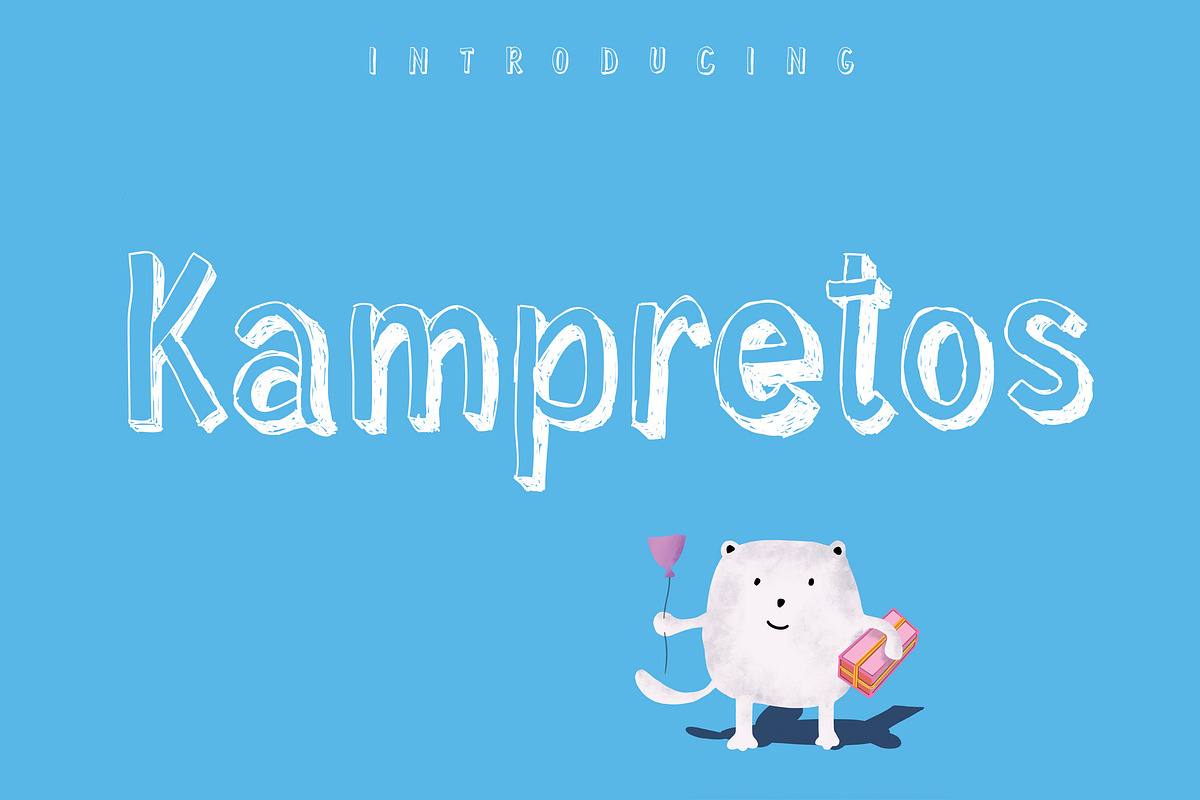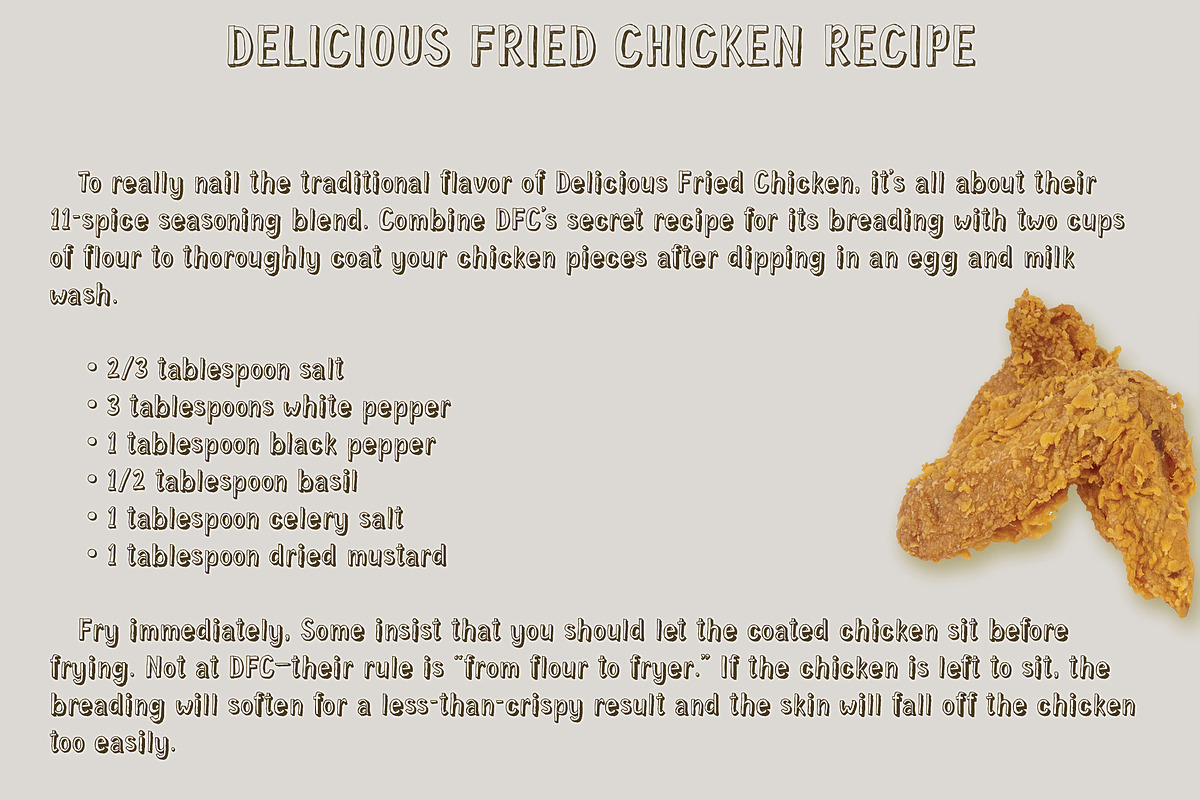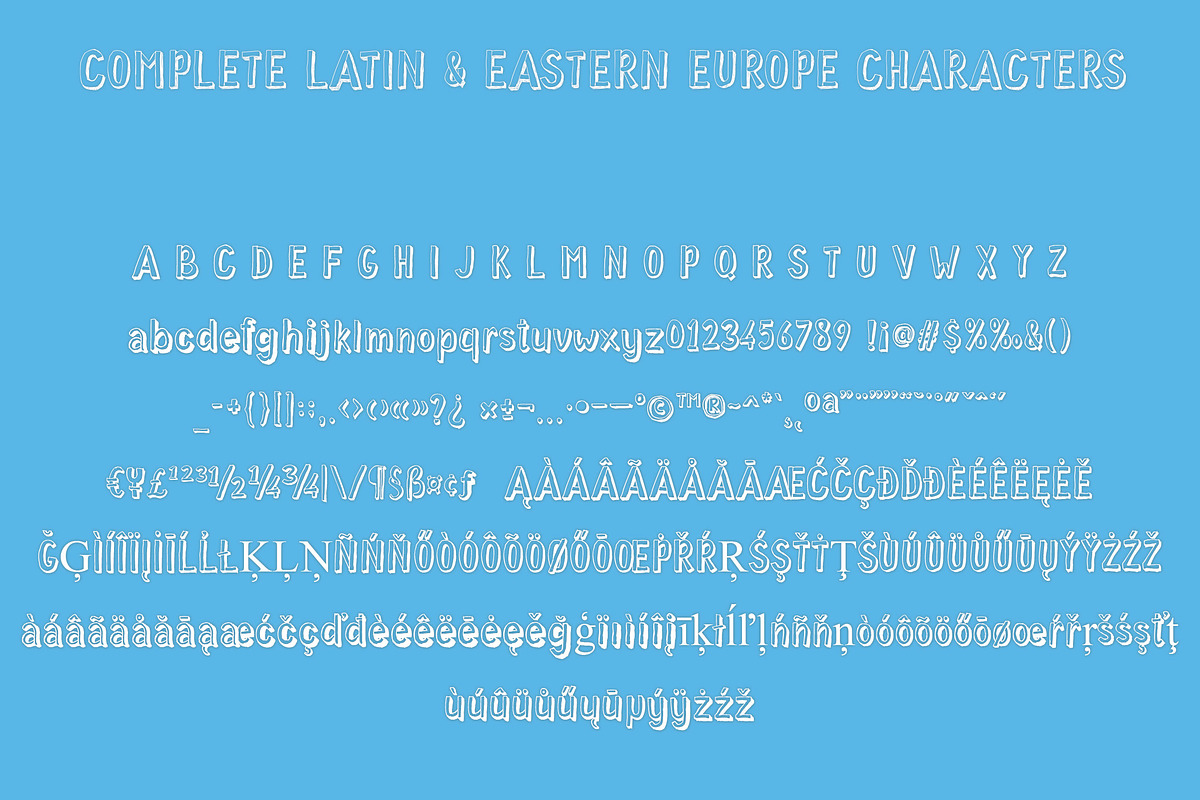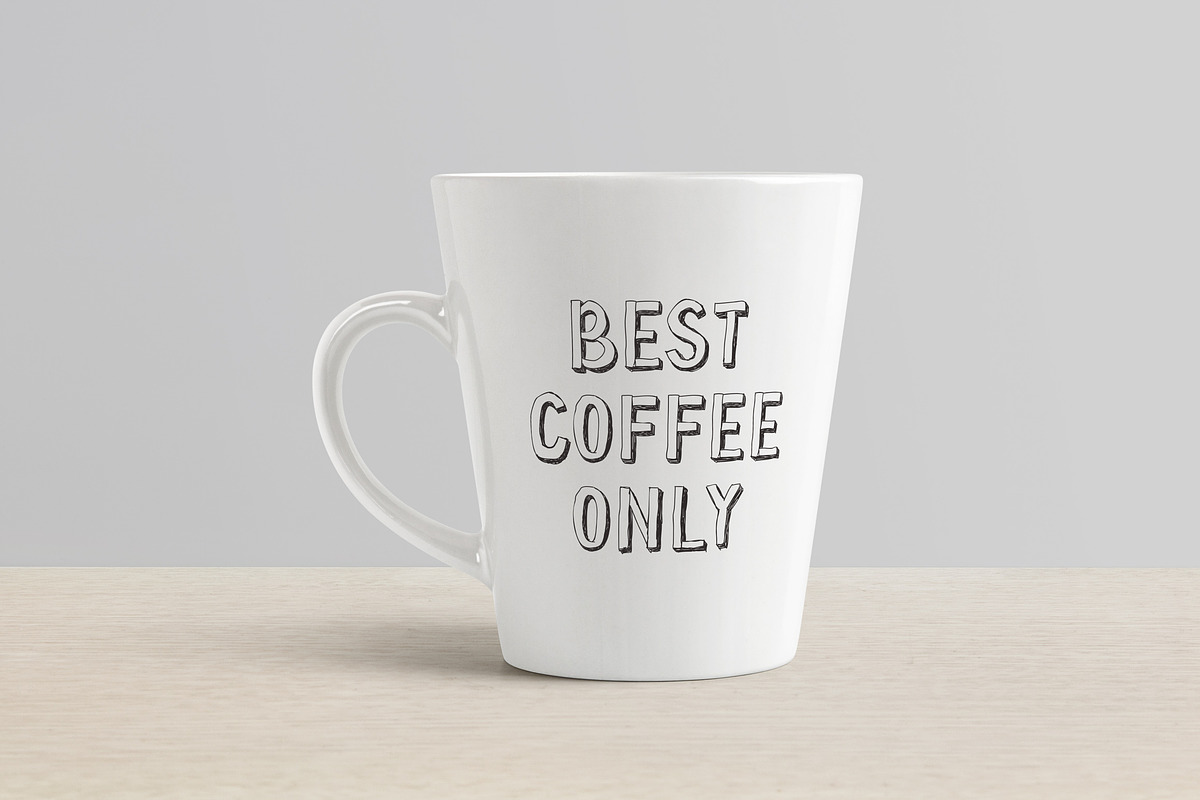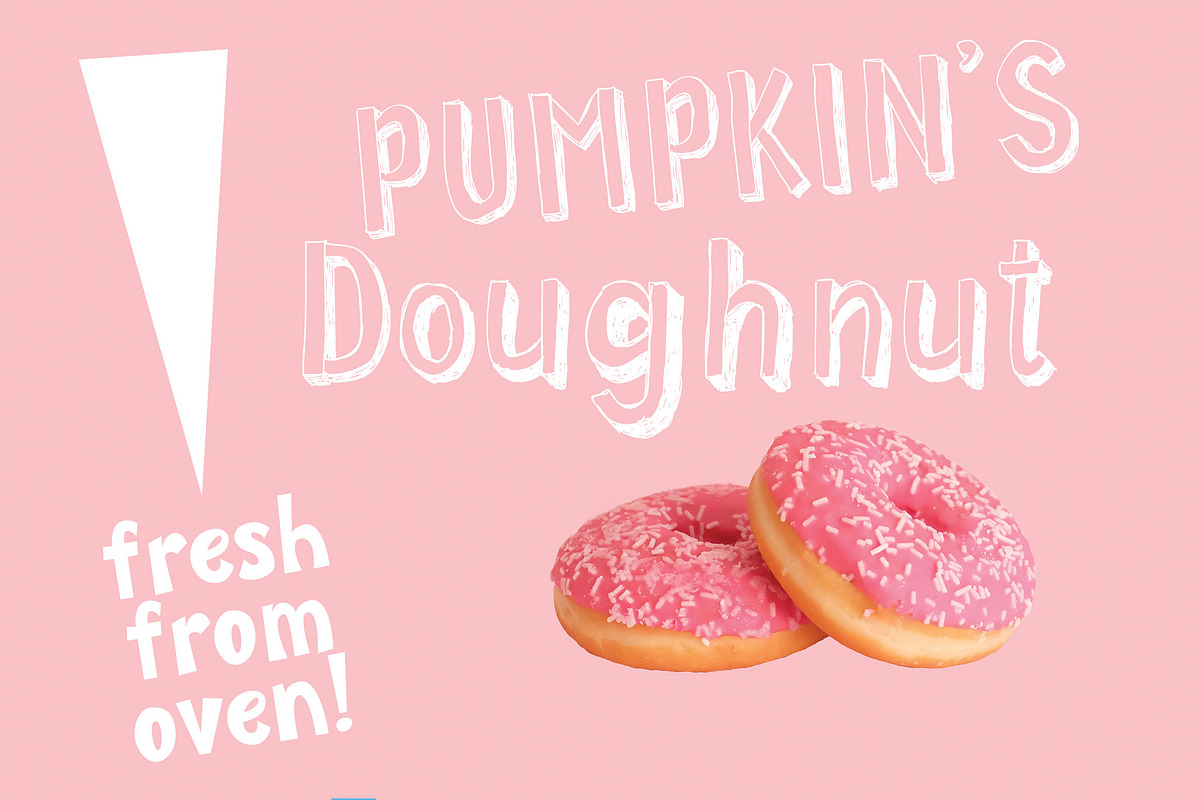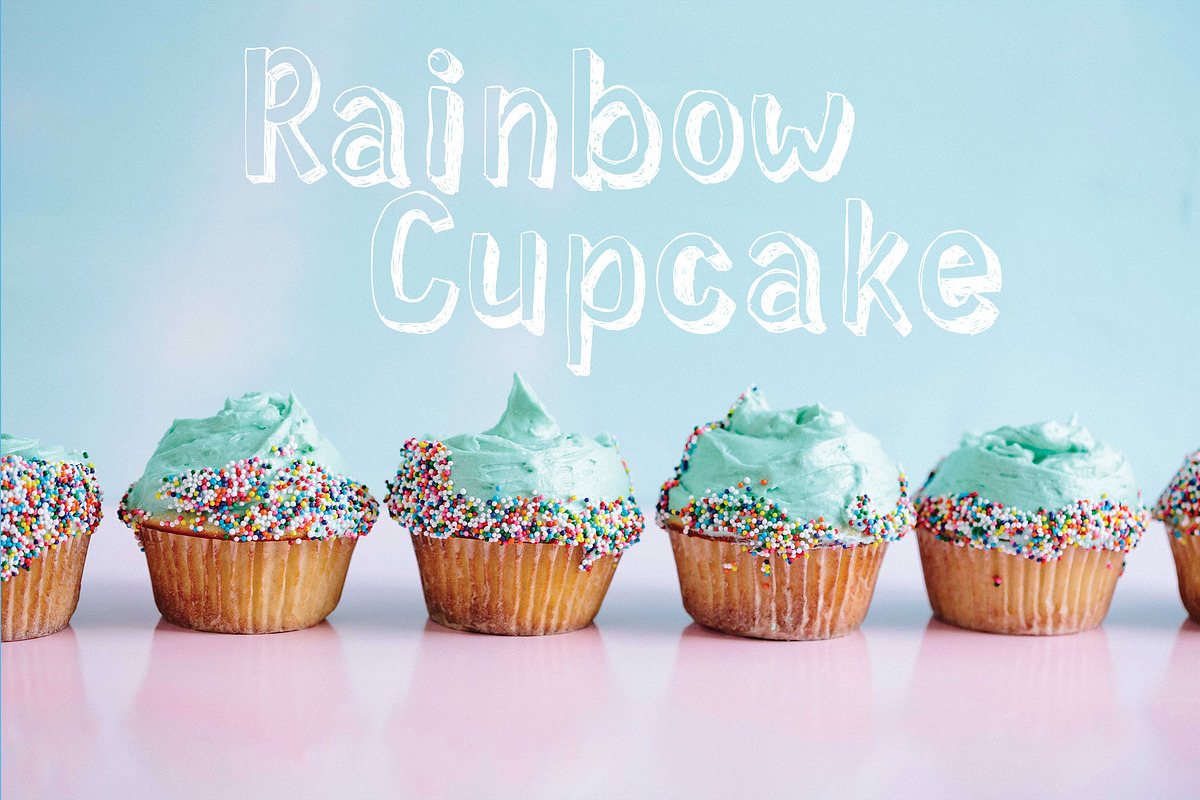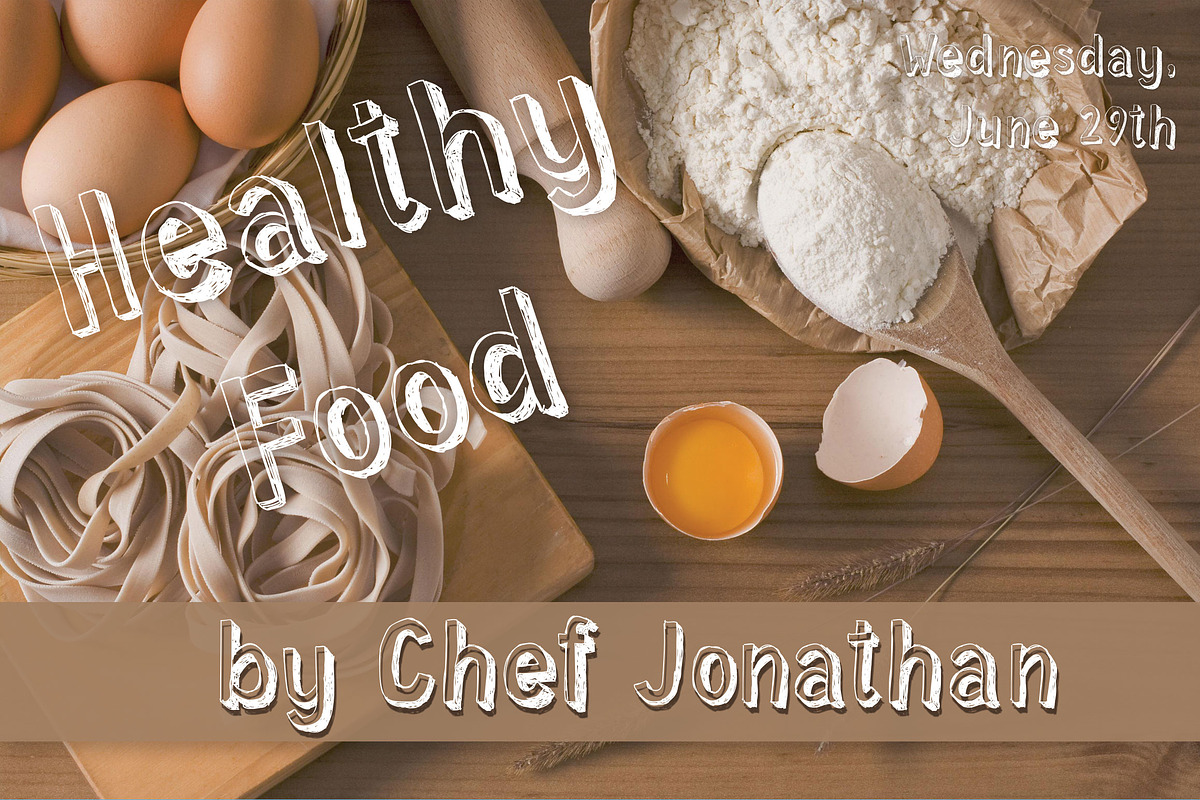
Kampretos | 3D Style Pen Drawing
Introducing a new fun taste of pen sketch style font. This font have 3D effect or extrude effect, but drawing in cartoon style. This font will nice to give cute theme in your books, magazine, flyer, YouTube thumbnail, etc.
This font contain 290 glyphs, supported to Latin, and Turkish characters.